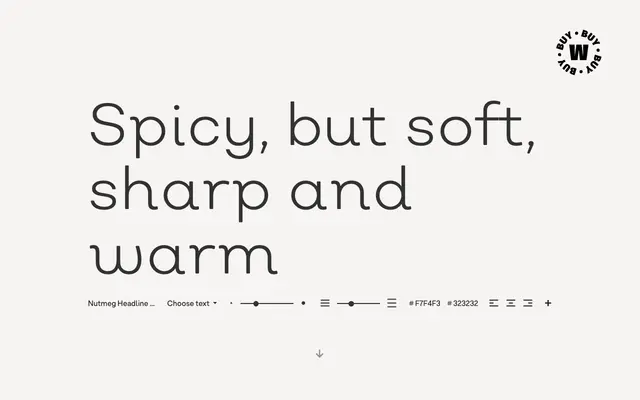
Nutmeg
A geometric sans in 36 styles split across two subfamilies, one cleaner and rational, the other more expressive with flavoured terminal details.
Designed by Salvador Rodriguez and released in 2017, Nutmeg pairs a rational geometric structure with distinctive character details that push it beyond the neutral end of the genre. The family is divided into Nutmeg for clean text use and Nutmeg Headline for display work where its terminal flourishes become more pronounced. Each weight ships with OpenType alternates, ligatures, fractions, arrows and extended language support across nine weights with matching italics.
Described explicitly as geometric in structure, Nutmeg follows traditional geometric sans forms while adding distinctive terminal details that give it a warmer, slightly characterful quality beyond a strict neutral geometric.